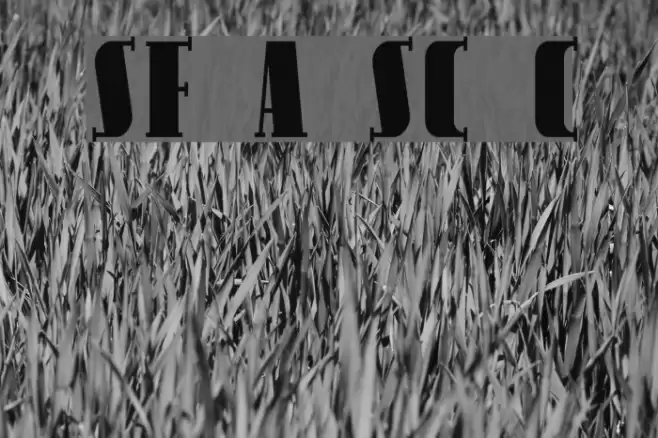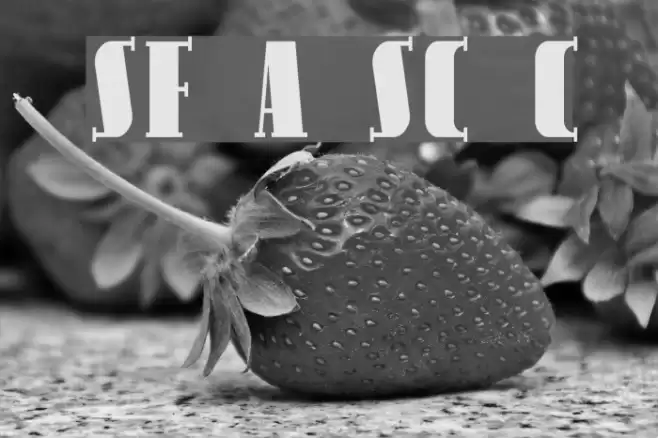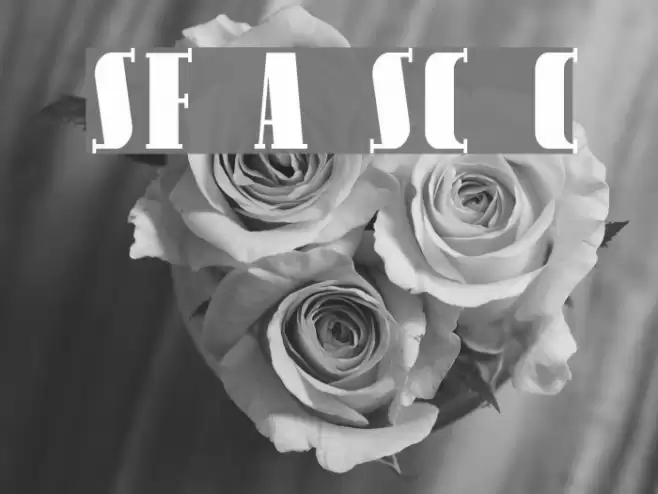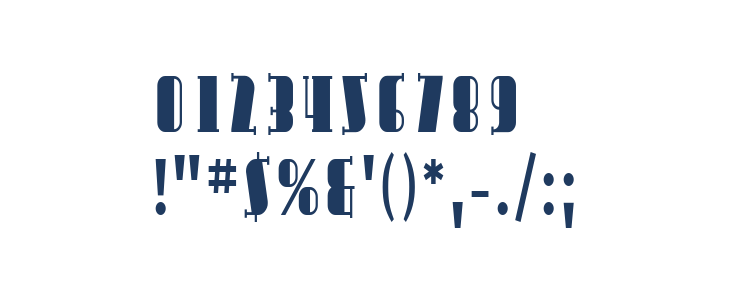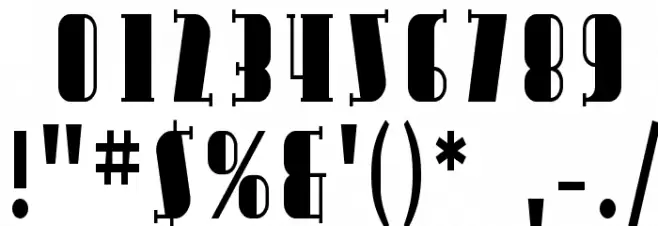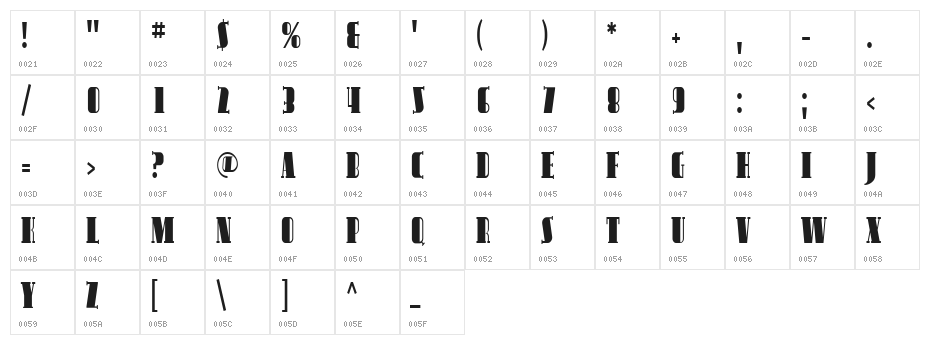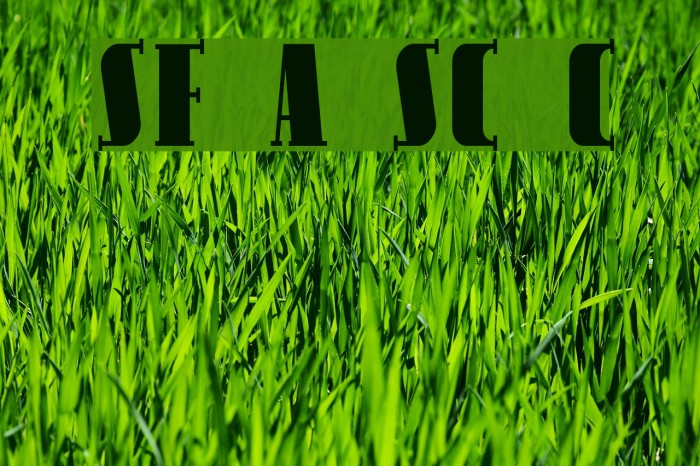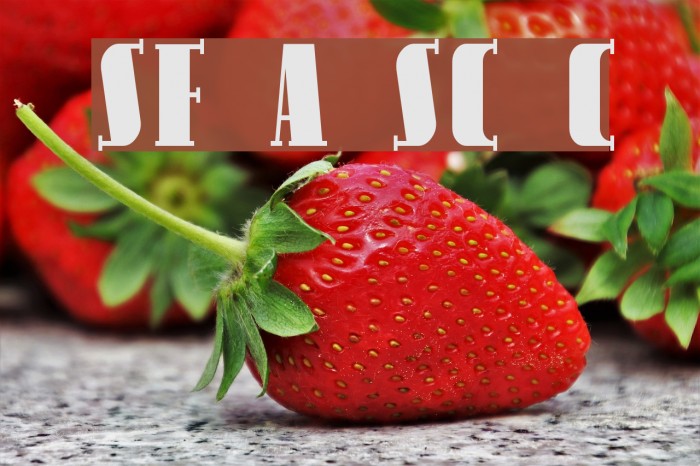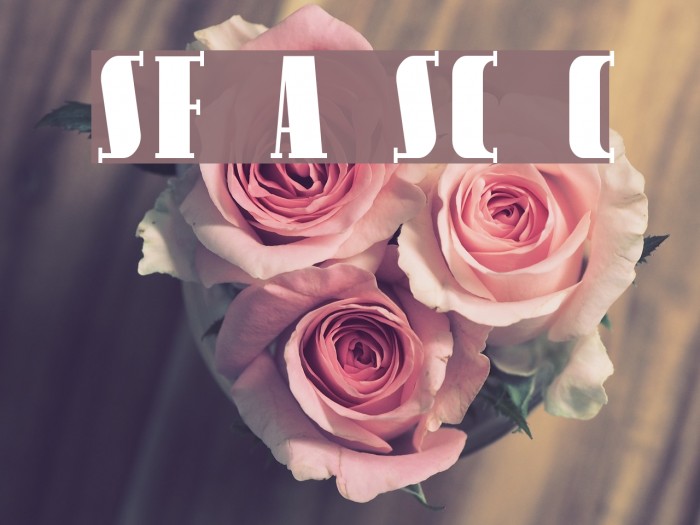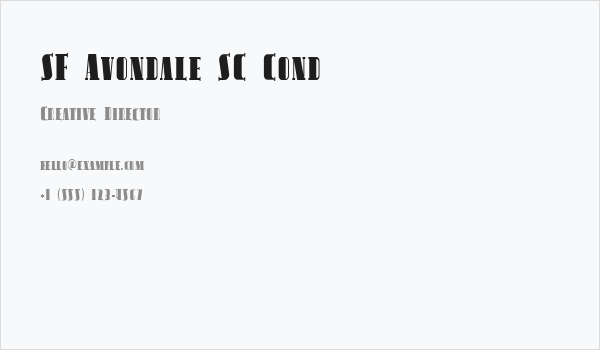
SF Avondale SC Cond Font
SF Avondale SC Cond Description
This font exhibits a bold and striking presence with its condensed letterforms and high contrast between thick and thin strokes. The characters are tall and narrow, giving a sense of elegance and sophistication. The serifs are pronounced and add a classic touch, while the overall design maintains a modern appeal. The uppercase letters are particularly dominant, making them ideal for impactful headlines. The numerals and special characters are consistent with the font's bold style, ensuring readability and visual harmony.
A bold, condensed serif font with high contrast and elegant serifs from Uncategorized fonts.
- Proposed Projects: Ideal for magazine headlines, poster designs, branding materials, and any project requiring a strong, sophisticated typeface.
- Character Spacing: Tight